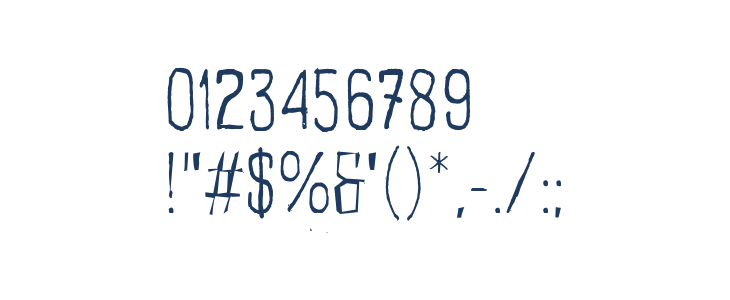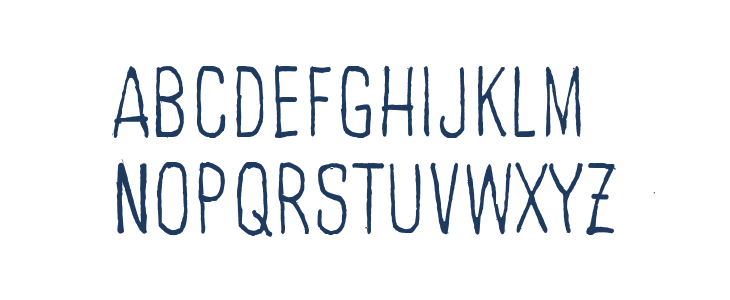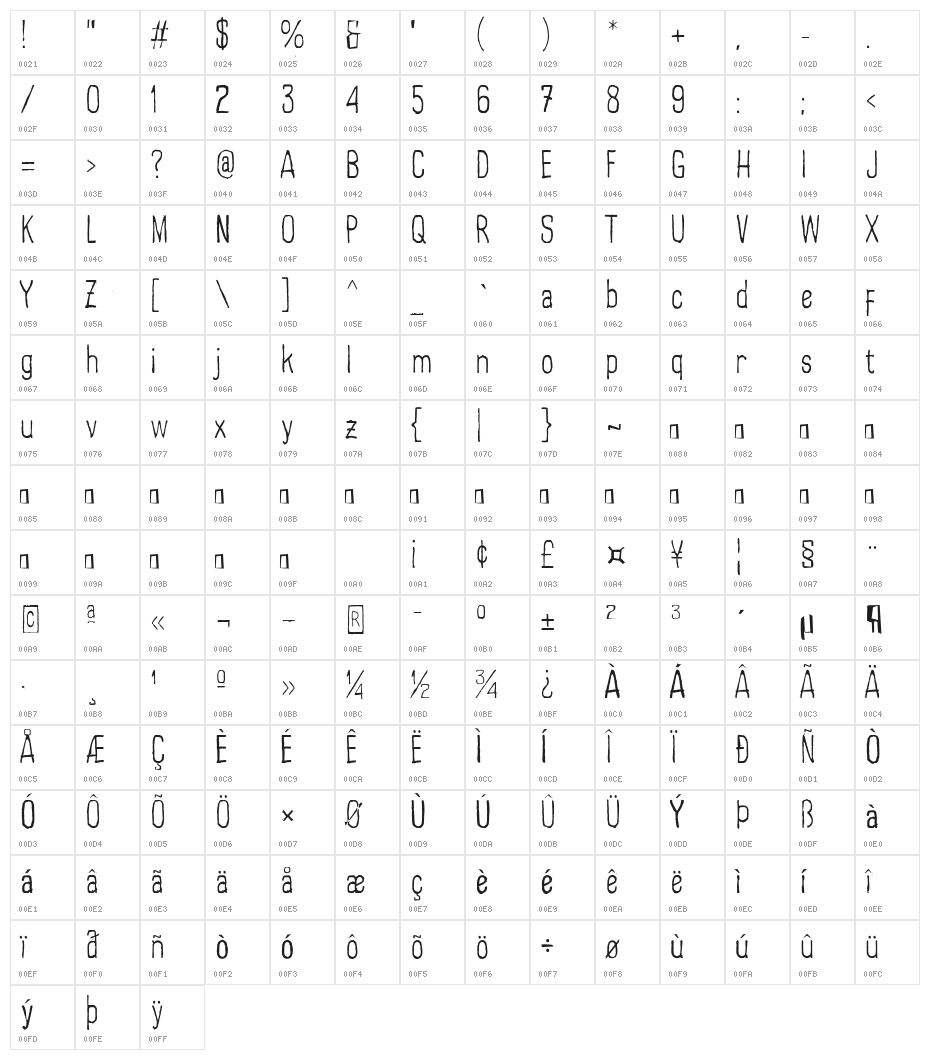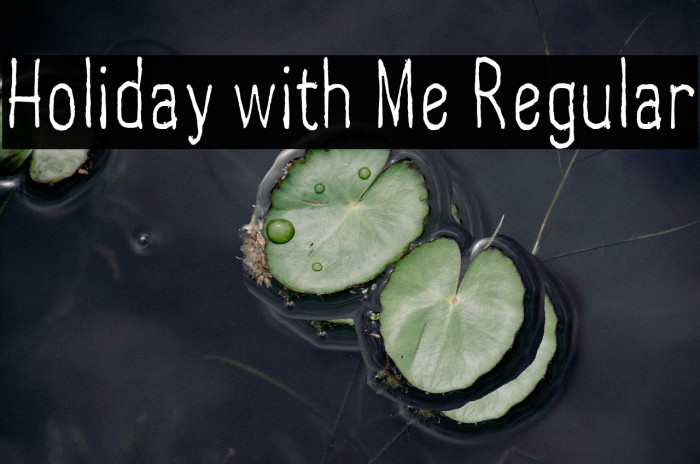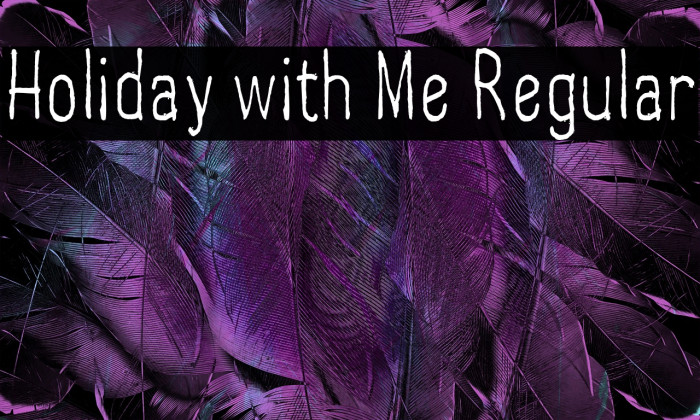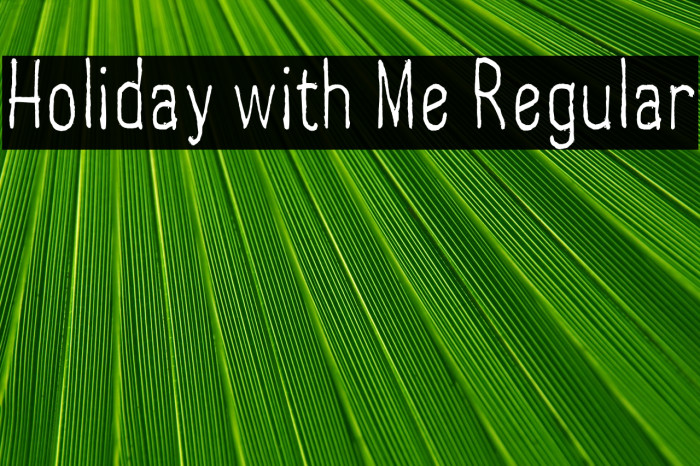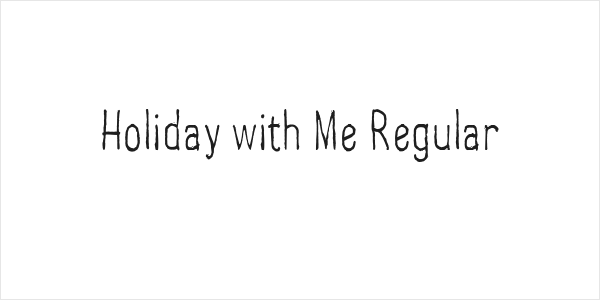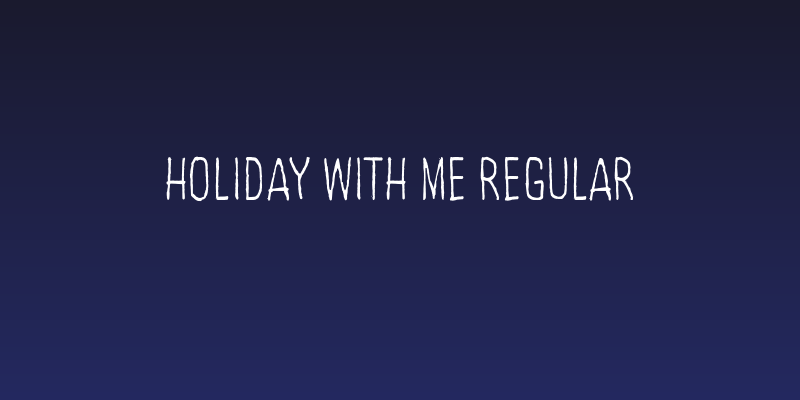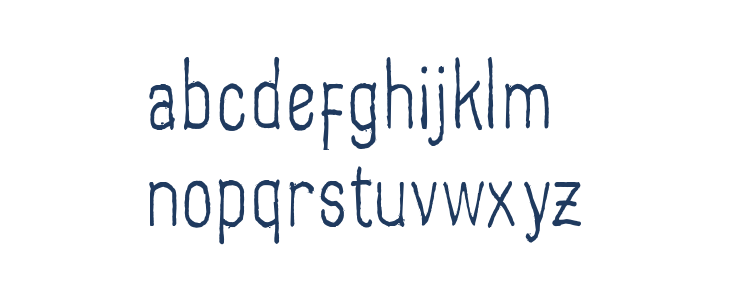
Holiday with Me Regular Font
Holiday with Me Regular Description
A playful, hand-drawn sans-serif font with irregular, organic strokes and a casual, whimsical appearance. The characters are tall and narrow with uneven line thickness, giving a friendly and informal feel.
| Overall Style | Playful, Casual, Hand-drawn |
| Use Case | Headlines, Posters, Informal Invitations, Social Media |
| Proposed Projects | Greeting cards, children's books, posters, informal branding, social media graphics. |